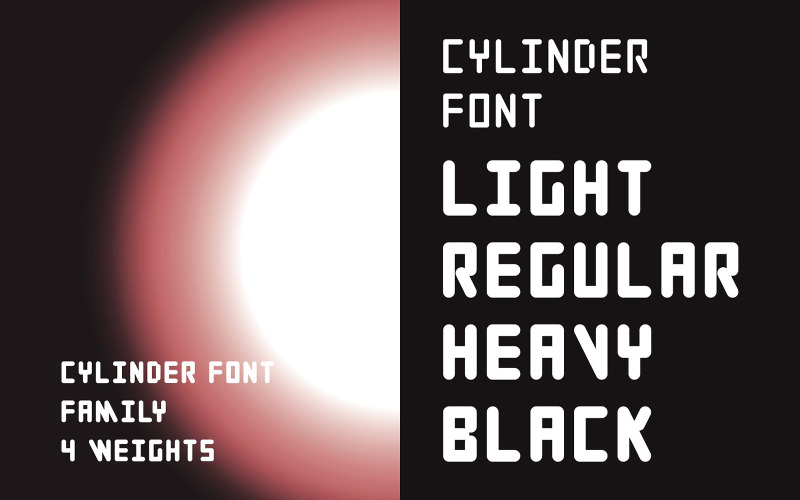
Cylinder Font Family by Fontsphere
Cylinder Font Family
4 (FOUR) fonts included:
Cylinder Light
Cylinder Regular
Cylinder Heavy
Cylinder Black
Font recommended for visual identification, illustrations, graphics, posters, headlines, large text, and more ...
The font consists of uppercase letters and a large number of characters. Contains over 220 glyphs.